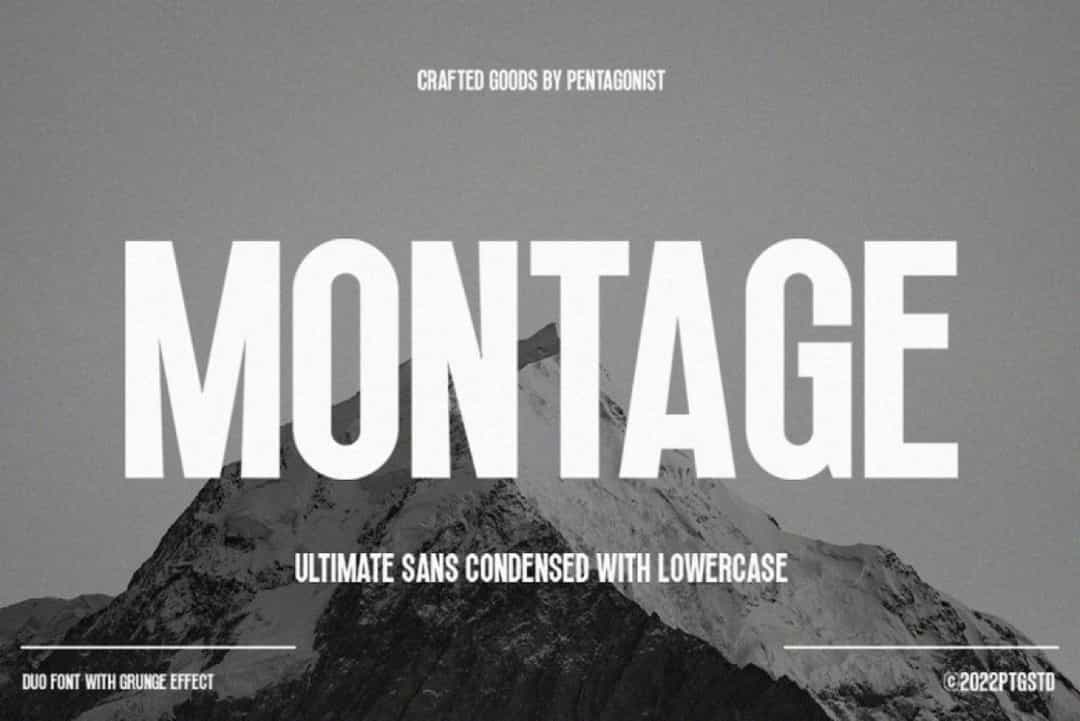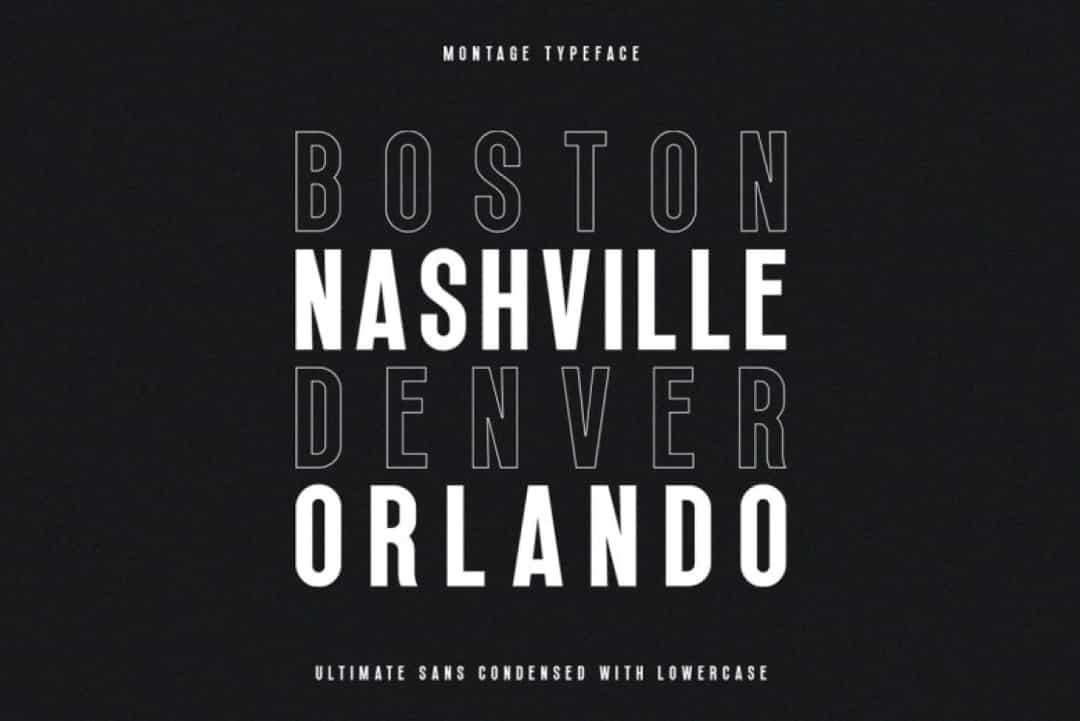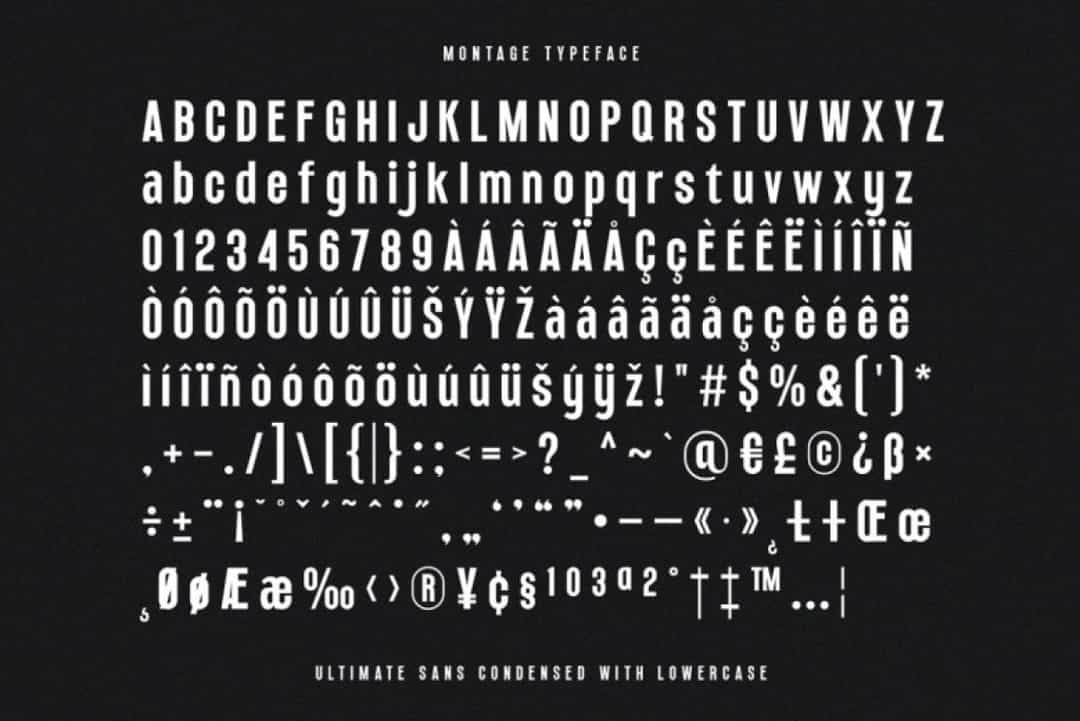
Montage Font is an old-fashioned sans-display font inspired by retro and condensed styles, making it the perfect font choice for branding, logos urban design contemporary advertising design book/cover titles special events adventures headlines clothing etc.